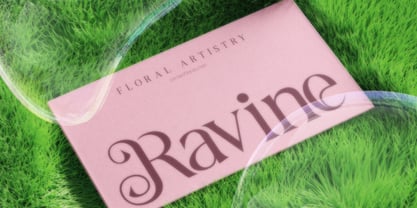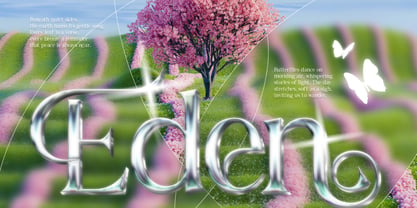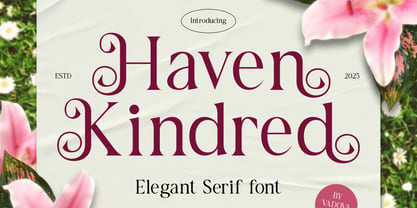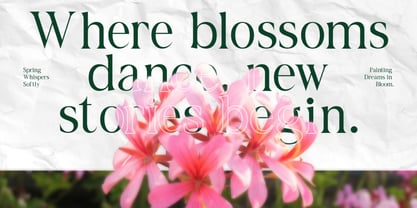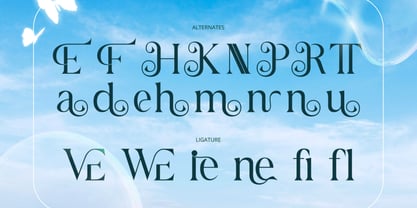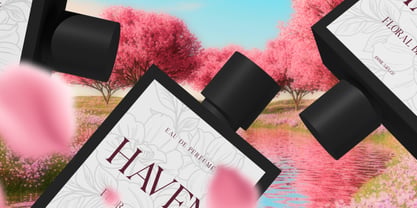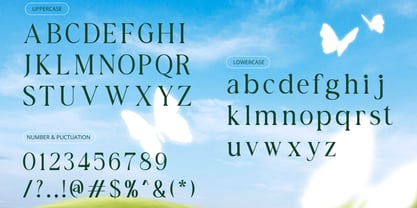
Haven Kindred
Haven Kindred is a refined serif typeface that blends classic elegance with decorative charm. Featuring graceful curves and swirled terminals, it brings a luxurious and timeless feel to any design. This font includes uppercase, lowercase, numerals, punctuation, and multilingual support. With its high contrast strokes and stylish details, Haven Kindred works beautifully in both print and digital formats. Ideal for romantic wedding invitations, editorial headers, feminine branding, packaging, and luxury logos, this typeface adds a sophisticated voice to your visual storytelling. Whether you're creating a dreamy floral brand or a soft, elegant layout, Haven Kindred elevates your design with poise and beauty.